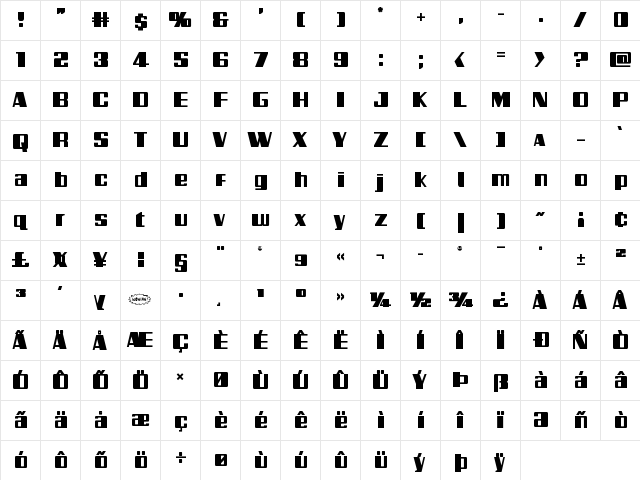
Galactic Storm Regular
Design Context for Galactic Storm Typeface
Galactic Storm is a composed and adaptable typeface that performs quietly and consistently across a wide range of design contexts.